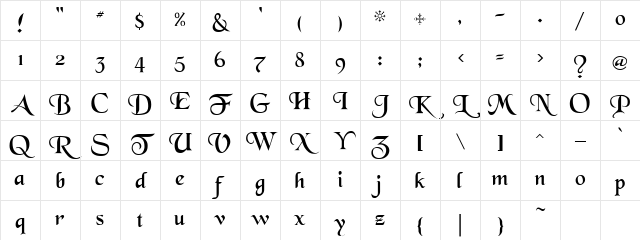
36 Regular
Design Context for 36
36 is a composed and adaptable typeface that performs quietly and consistently across a wide range of design contexts.